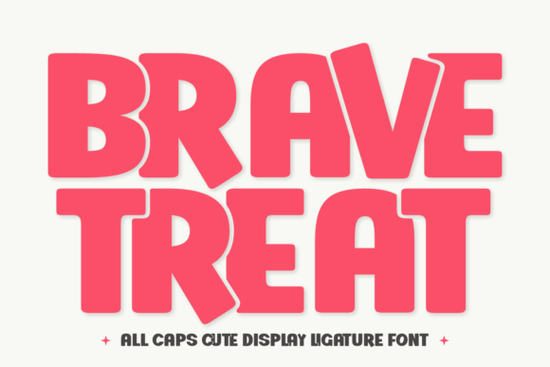
If you're looking for a friendly, bold display font that works as well on a kindergarten classroom poster as it does on a summer t-shirt or holiday sticker sheet, the Brave Treat Font is worth your attention. It’s not overly decorative or hard to read just warm, rounded, and confidently playful. Designers and crafters who’ve used it often say it feels “like a hug in typeface form”: approachable but never childish, simple but full of personality.
What kind of projects does Brave Treat Font actually work well for?
This font shines where clarity and charm matter together. Think: classroom banners, birthday party invites, teacher appreciation cards, or cheerful social media graphics for small businesses. Its thick, blocky letterforms hold up beautifully at larger sizes especially on printed materials like posters, mugs, or vinyl decals. Because it’s designed as a display font (not for long paragraphs), it’s ideal for headlines, quotes, logos, and short phrases.
It’s also a favorite among Cricut and Silhouette users. The clean outlines and generous spacing make cutting clean vinyl or iron-on transfers straightforward. And if you design in Procreate, you’ll appreciate how smoothly it layers with hand-drawn elements its rounded corners and soft edges blend naturally with brush strokes and doodles.
How does it compare to other popular display fonts?
Unlike some bolder fonts that lean into sharp angles or industrial grit, Brave Treat keeps things gentle and inclusive. You’ll notice subtle ligatures like the connected “ff” or “tt” that add polish without fuss. Its all-caps styling feels intentional, not forced, and the consistent weight makes pairing it with simpler sans-serifs (like Montserrat or Open Sans) easy and balanced.
If you’ve tried Pokemon Font, you’ll recognize the fun energy but Brave Treat trades cartoon exaggeration for quiet confidence. It’s less about mimicry and more about mood: think cozy storytime instead of high-energy battle scenes. For educators, it’s a natural alternative to Beautiful Lashes Font, which leans more romantic and delicate, or Howdy Cowgirl Font, which brings rustic western flair. And while Heart Font centers on love and affection, Brave Treat spreads joy across broader themes learning, celebration, growth, and everyday kindness.
Where does it fit in real-world workflows?
Small business owners use it for seasonal product labels (think “Pumpkin Spice & Everything Nice” for fall collections) and farm-themed shop signage. Print-on-demand sellers report strong performance on kids’ apparel especially when paired with simple line art or watercolor backgrounds. Teachers love it for editable planners, behavior charts, and bulletin board sets because it’s legible from across the room and feels inviting rather than intimidating.
- It’s a single-style font (not a family with weights or italics), so plan pairings ahead try a clean, neutral sans-serif for body text.
- Includes standard Latin characters, numbers, and basic punctuation great for English-language projects, but check the character map if you need extended language support.
One last note: while it’s joyful and summery, don’t limit it to warm-weather projects. Its rounded edges and sturdy proportions give it surprising versatility we’ve seen it used effectively in Thanksgiving table tents, Easter egg labels, and even minimalist farmhouse wedding signage. It’s not just for kids it’s for anyone who values warmth, readability, and quiet confidence in their typography.